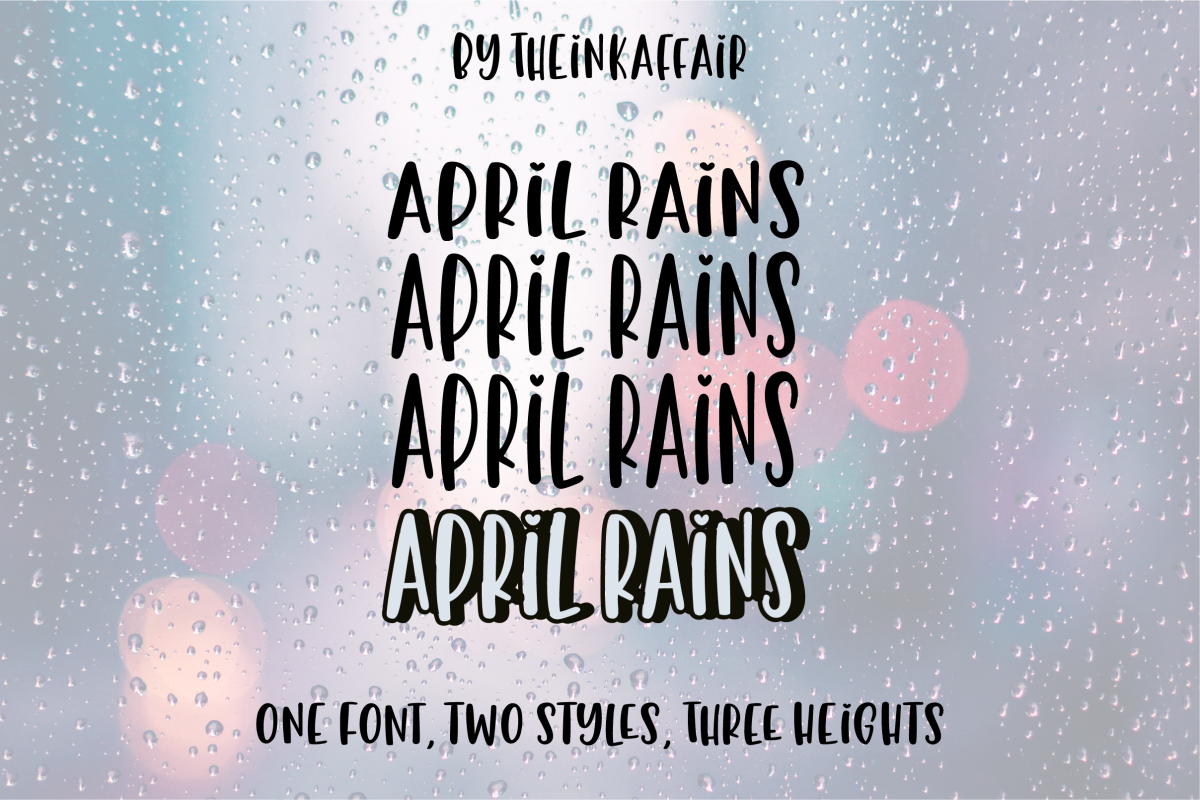
April Rains, one font, two styles, three heights
It's raining heights!
Meet April Rains, a sweet and simple font that comes in three heights, tiny, regular, tall and and two styles: regular and shadow.
Add depth to your designs: Use April Rains Regular and April Rains Shadow together and layer them up ( as seen in preview image 3 : to layer or not to layer)
- April Rains Tiny
- April Rains Regular
- April Rains Tall
- April Rains Shadow